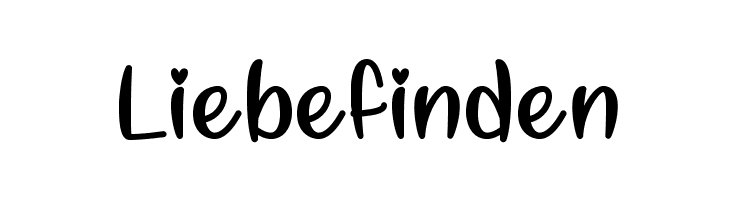
A modern, extra light sans-serif font with a semi-condensed style.
A cursive, handwritten font with elegant, flowing strokes.
A sophisticated, flowing script font with elegant, connected letters and high contrast.
A bold, playful font with rounded, hand-drawn characters.
A playful, casual handwritten font with loose, flowing strokes.
A bold, playful font with a 3D effect and graffiti-like style.
A playful, bold font with rounded, whimsical letterforms.
A bold, outlined font with a geometric and impactful style.
A bold, geometric font with outlined characters for a striking effect.
A futuristic italic font with geometric precision and dynamic style.
A bold, jagged font with an edgy, rebellious aesthetic.
A bold, geometric font with sharp angles and solid shapes.
Cartoonish animal illustrations form each character in a playful, decorative style.
A bold, angular font with a futuristic and geometric style.
A bold, italic font with sharp, angular lines and a dynamic forward slant.
A bold, jagged font with a graffiti-inspired, energetic style.
A bold, hand-drawn font with a playful and casual style.
A bold, pixelated font with a retro digital style.
A bold, distressed font with an eroded, horror-comic style.
A bold, extra-wide outline font with an italic slant and geometric design.
A bold, modern font with geometric, rounded characters.
A bold, grungy font with splatter elements and angular letterforms.
A lively, handwritten-style font with dynamic strokes and a playful feel.
A bold, geometric font with outlined characters and a modern style.
A whimsical, hand-drawn font with playful and dynamic characters.